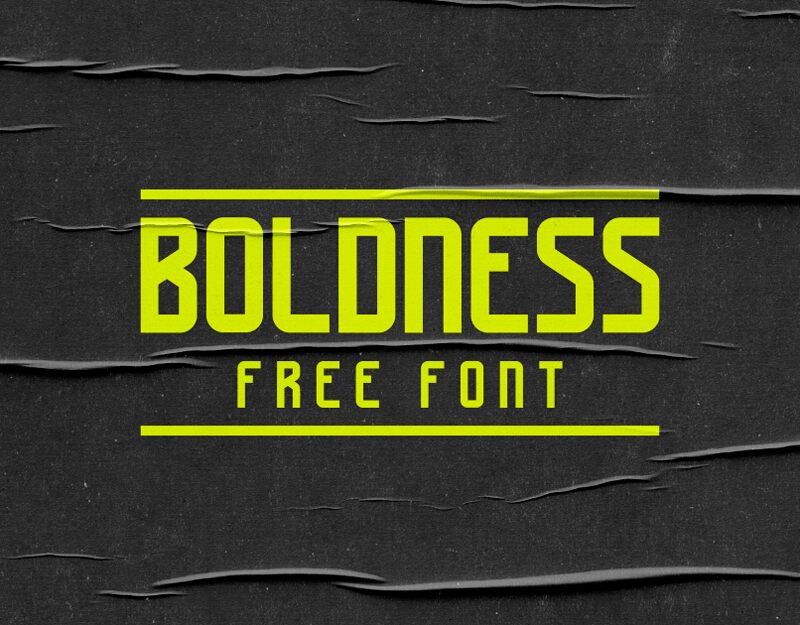
Boldness uma tipografia moderna que combina traos retos e curvos simbolizando coragem e modernidade, seja ousado!
Boldness is a modern typography combining straight and curved lines that symbolize courage and modernity, be bold!
Boldness